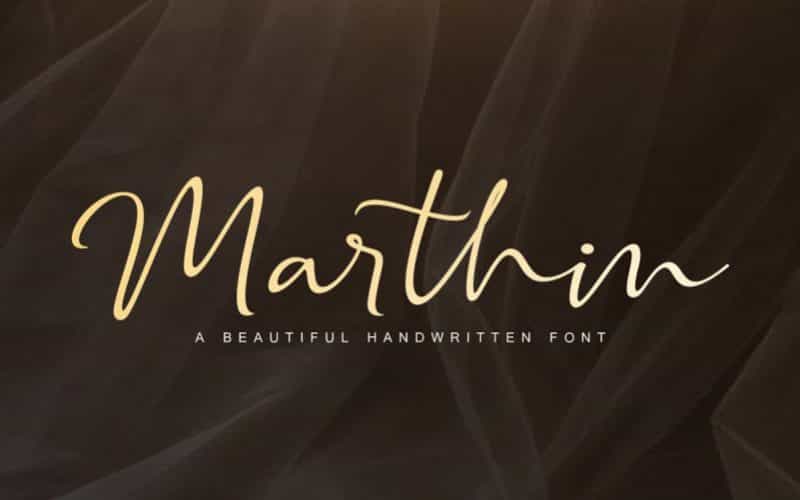
Discover Marthin Calligraphy Font, part of the Calligraphy Handwritten collection—a versatile and unique font perfect for adding a personal touch to your projects. Download it for free and enjoy crafting designs with style, from invitations to social media posts. This font is available exclusively for personal use, giving you the freedom to create without limits. Unlock your creativity with Marthin Calligraphy Font today!
Introducing Marthin Font – a new modern signature with elegant lines make this font perfect for your personal branding and any awesome project, such as : cards, processes, invitations, stationaries, wedding concepts, social media updates, billboards, wrappers, sample products’ designs, labels, photos, watermarks and event celebrations and others.